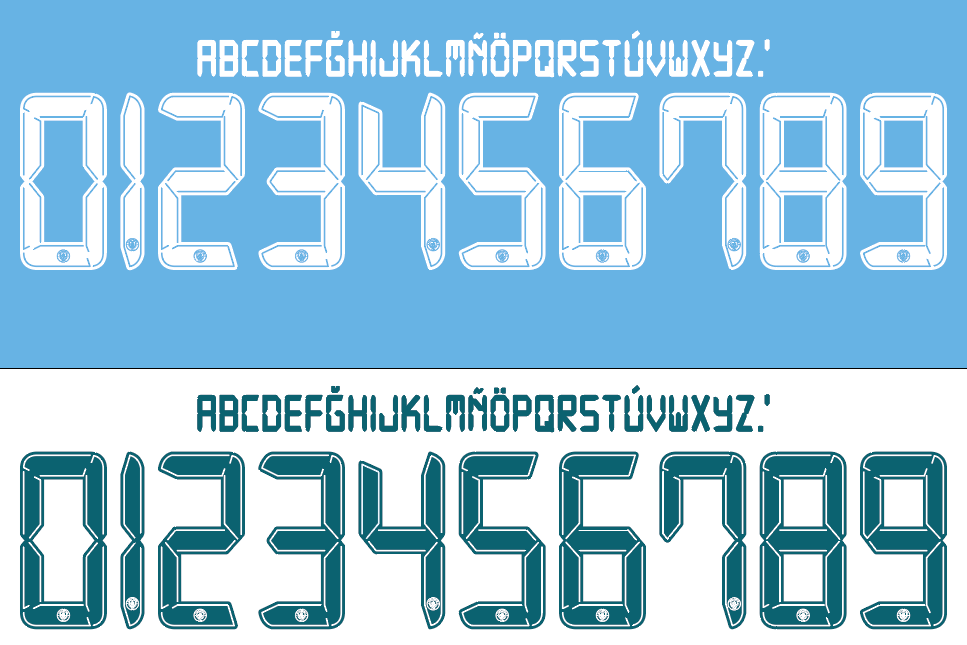
Manchester City-21-22 UCL / Cup Font Nameset AI Vector File
Download this Manchester City 2021-2022 UCL / Cup nameset as an editable .ai vector file. Styled in the 21/22 font, it’s perfect for replicating shirts from the season City secured another Premier League title and pushed deep into the Champions League. Great for custom kit projects or football memorabilia artwork.